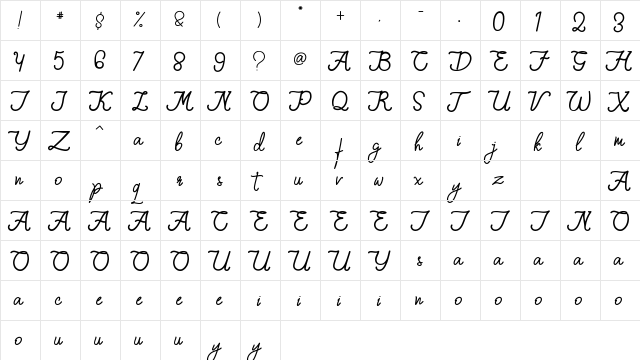
Qiara Tosfa Regular
Design Context for Qiara Tosfa Typeface
Qiara Tosfa is a composed and adaptable typeface that performs quietly and consistently across a wide range of design contexts.